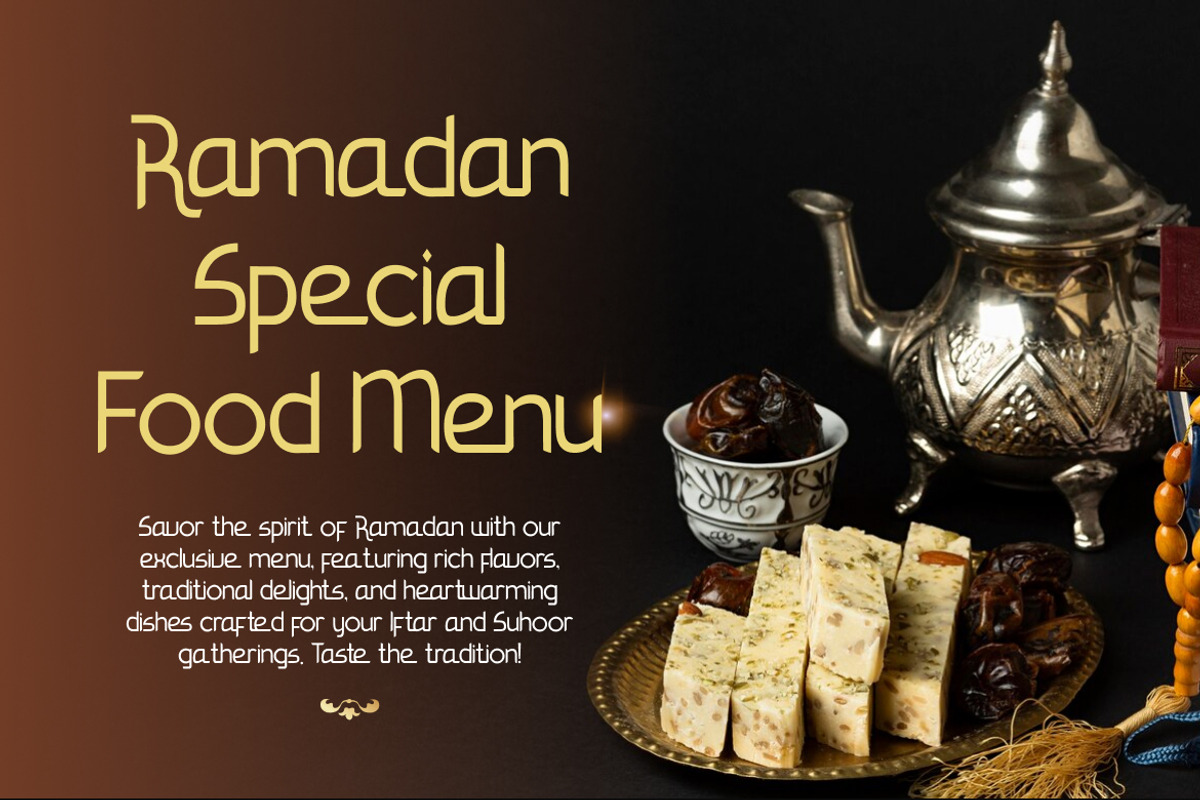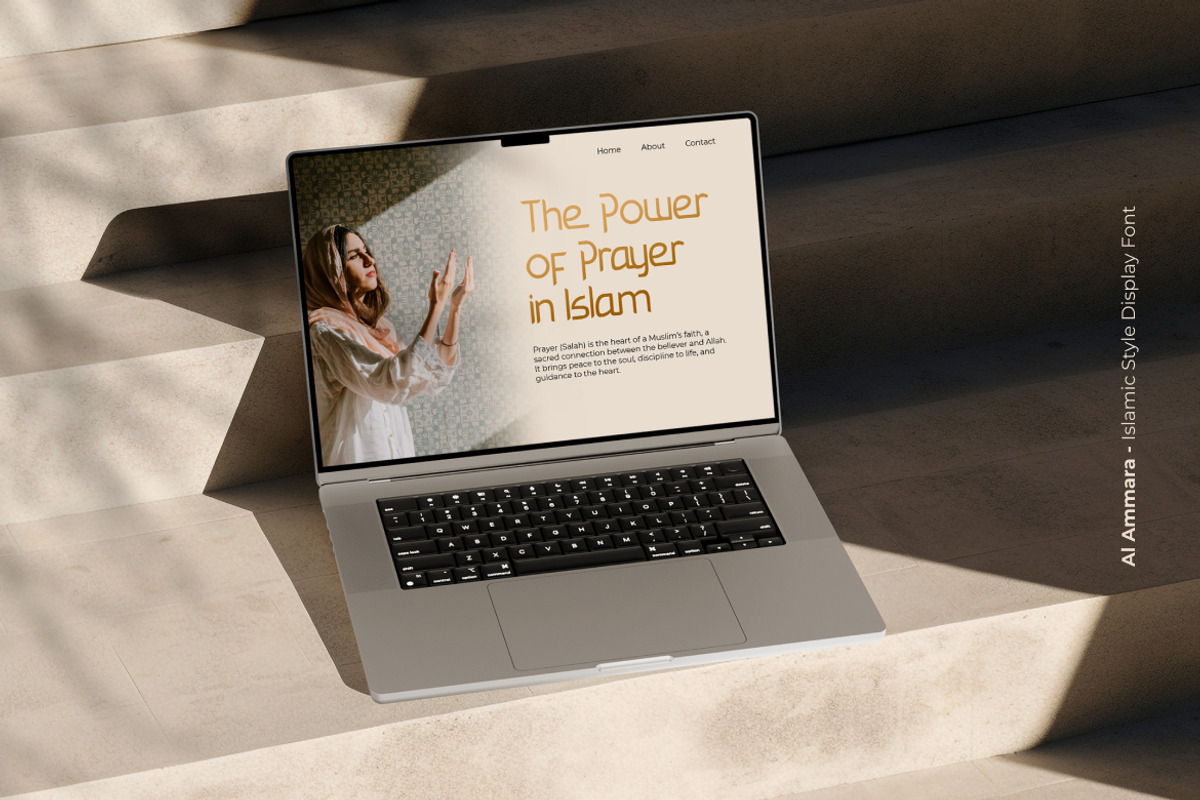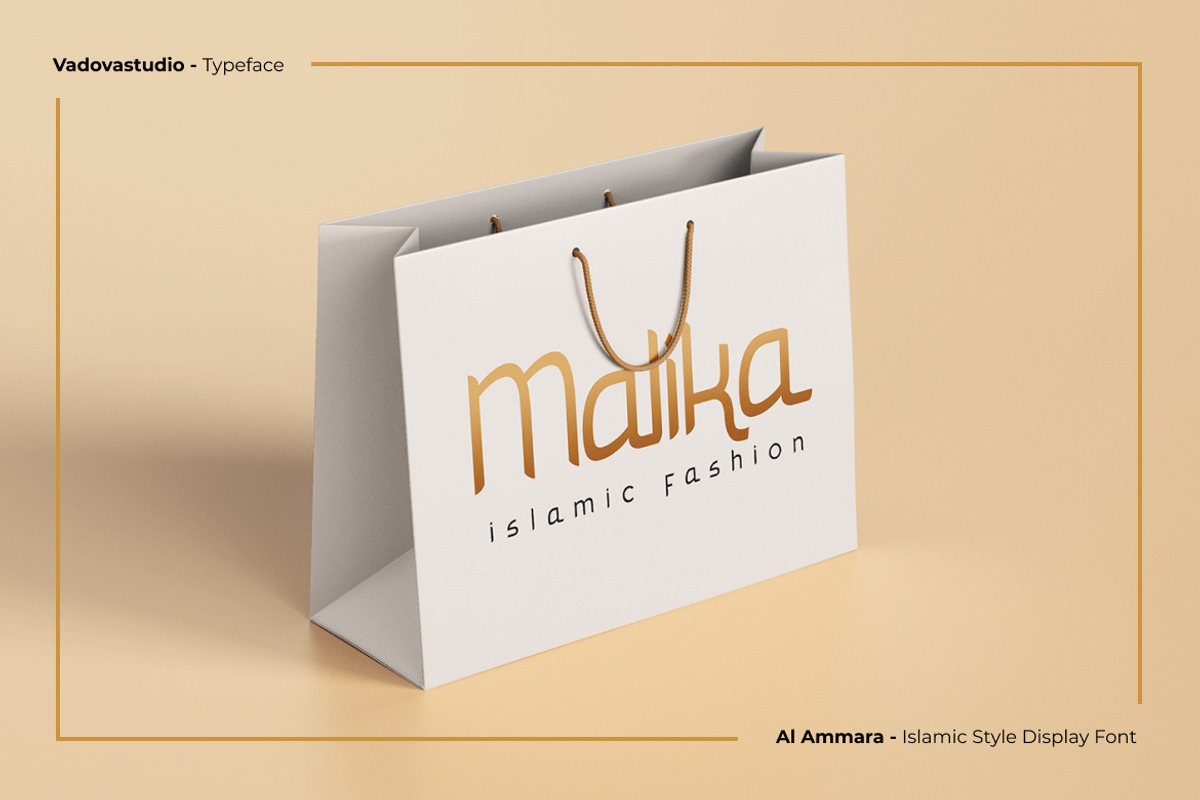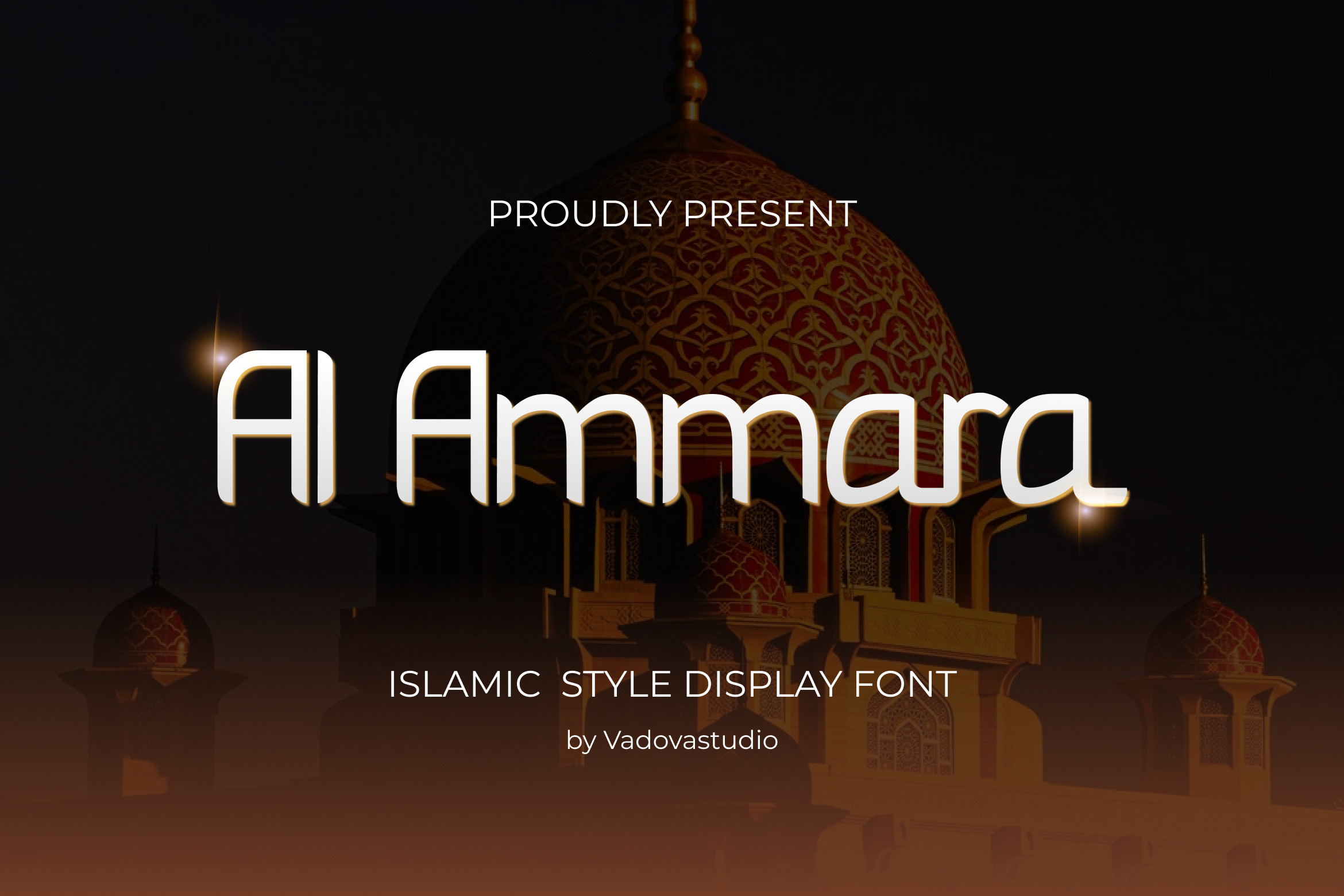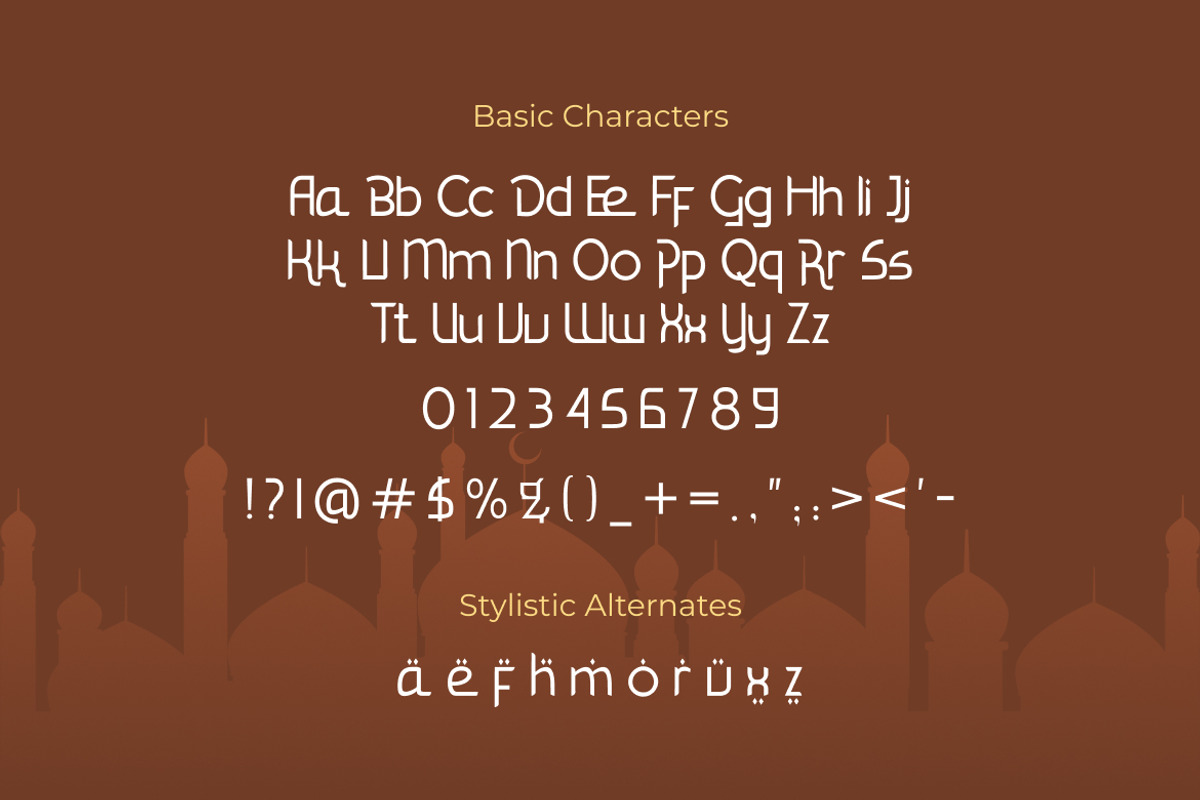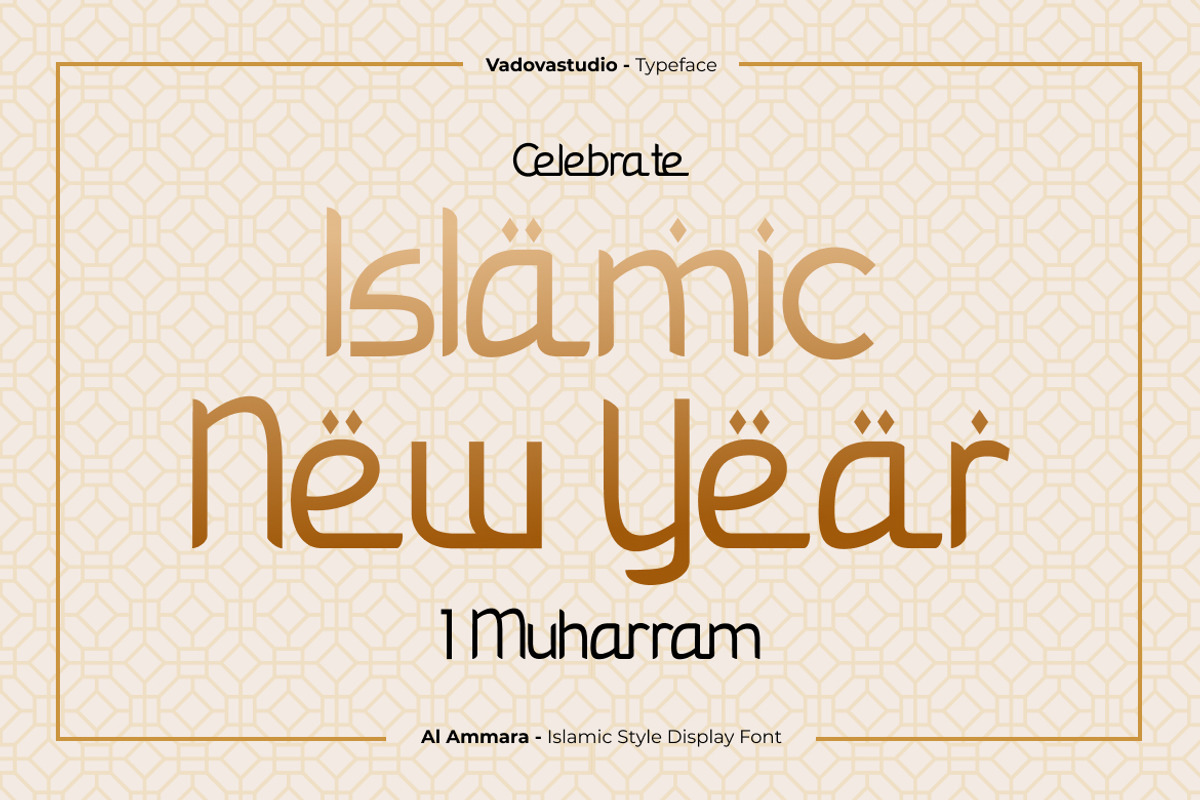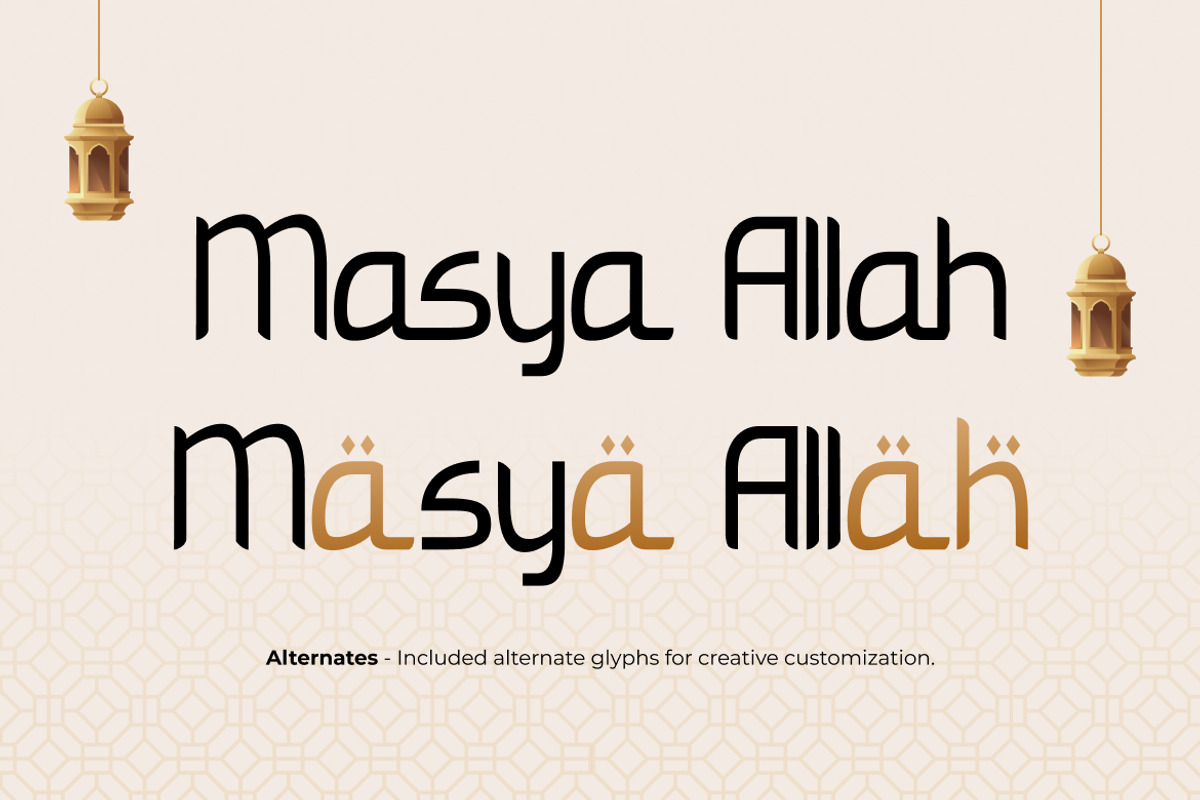
Al Ammara Islamic Font
Al Ammara is a refined Islamic-style display font that beautifully merges cultural elegance with modern design clarity. Inspired by the timeless architecture and ornamental beauty of Middle Eastern artistry, this font brings a warm spiritual touch to your creative projects. Its soft curves and geometric rhythm mirror the balance and harmony found in Islamic patterns, creating a typeface that feels both traditional and contemporary.
Every letter in Al Ammara is crafted with intention from its rounded terminals to its subtle linear flow giving it a graceful yet structured personality. The design evokes sophistication without losing its cultural roots, making it perfect for religious events, spiritual campaigns, or branding that celebrates faith and artistry.
The font’s versatility allows it to shine in modern layouts while preserving its classical influence. Its open structure makes it easy to read in large titles or short phrases, maintaining elegance even in minimalist compositions. Designed with precision for designers, typographers, and creative professionals, Al Ammara turns text into art.
- Elegant Islamic-inspired display font with geometric and ornamental balance
- Smooth rounded strokes that blend tradition with modern simplicity
- Perfect for Ramadan campaigns, Eid greetings, and Islamic event branding
- Carefully constructed letterforms for clarity and harmony in layout design
- Supports multilingual characters for global use
- Optimized for both print and digital applications
- Distinct personality while maintaining professional readability
- Ideal pairing with minimalist sans-serif or decorative Arabic-style fonts
- Works beautifully for packaging, invitations, and logo designs
Relevance and Use Cases is Ramadan posters, Eid invitations, Islamic fashion labels, or event packaging, it adds a sense of serenity and prestige. The luminous balance between boldness and delicacy ensures that every word radiates beauty and meaning.